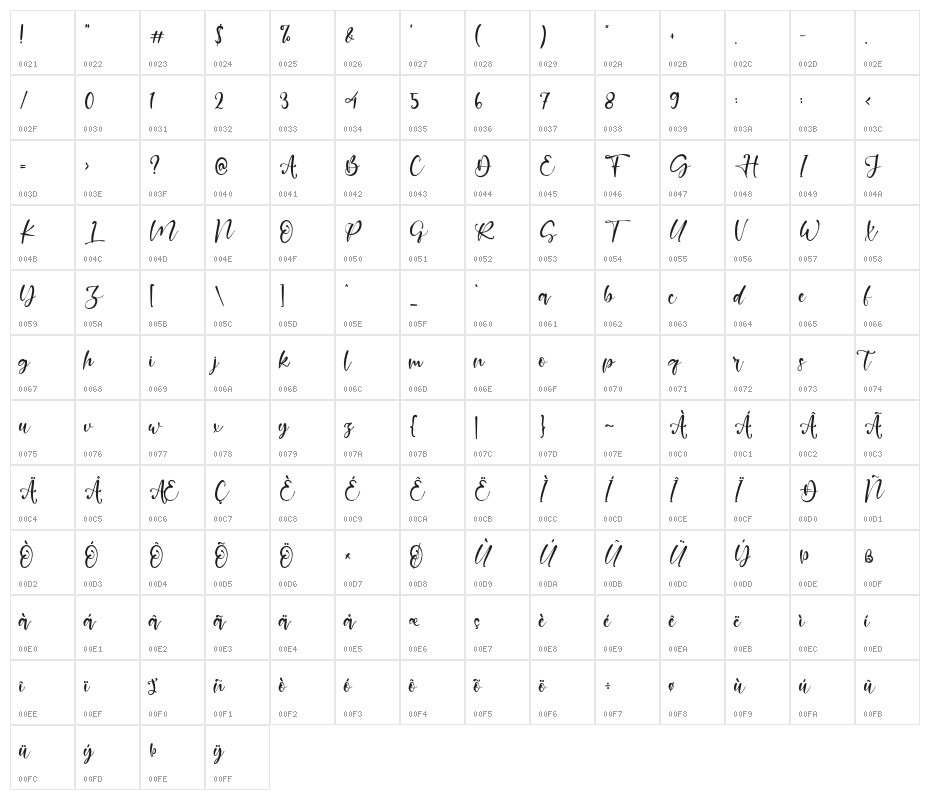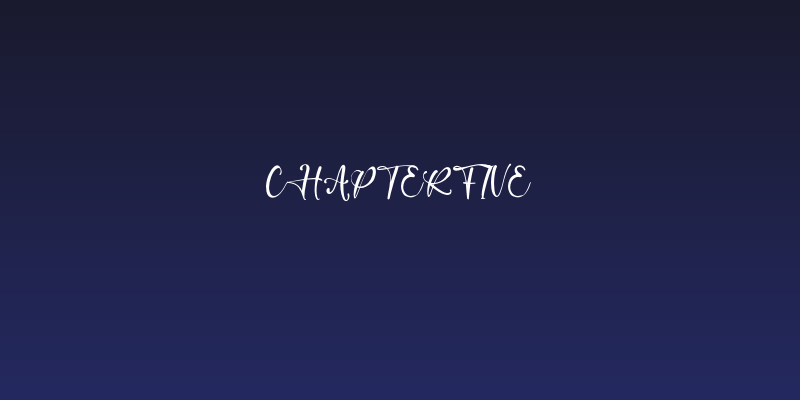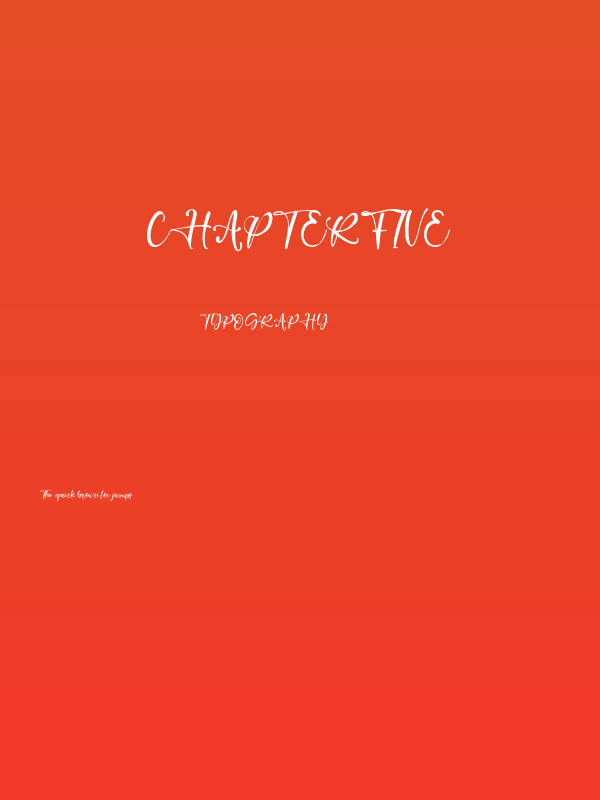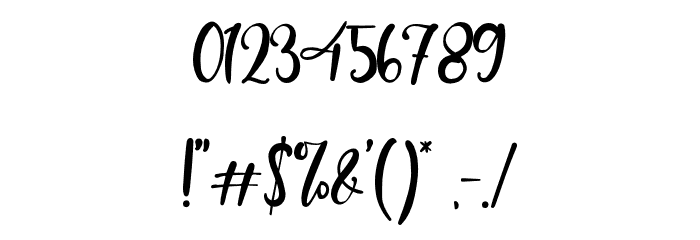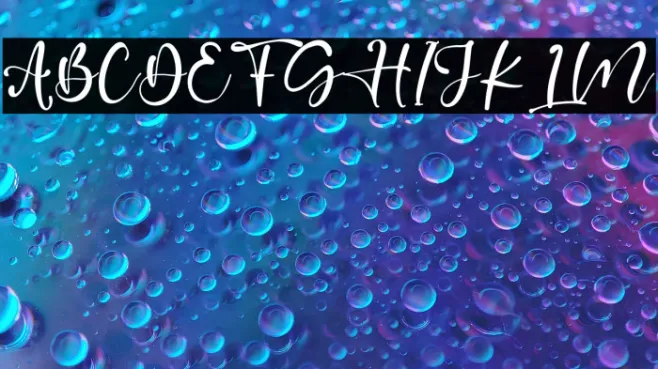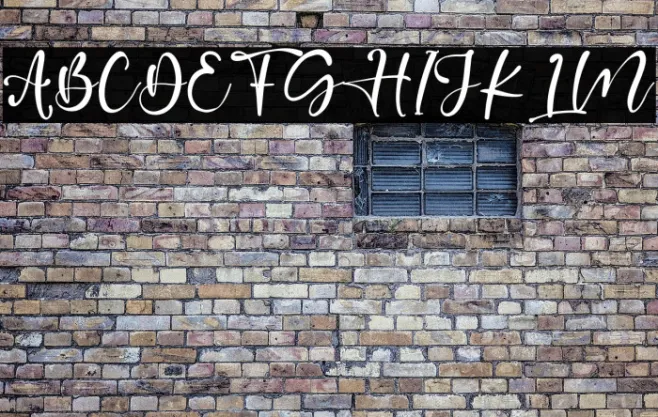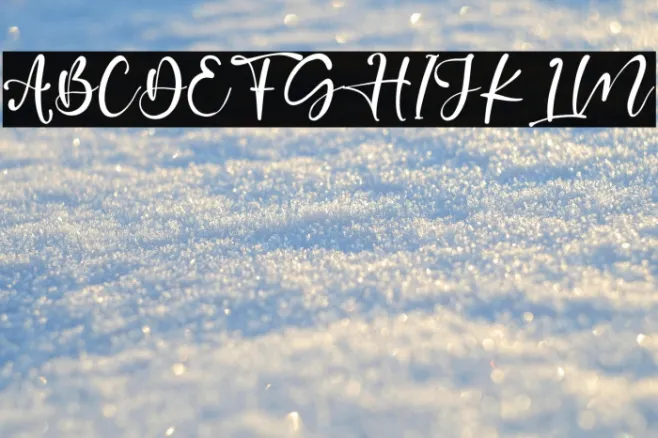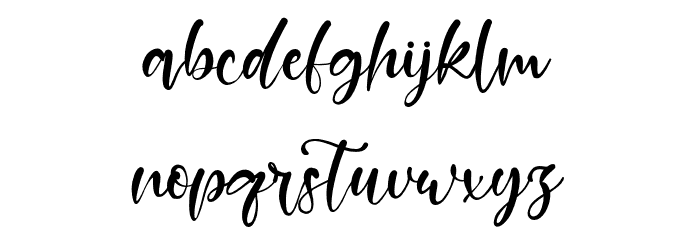
ChapterFive Font
ChapterFive Description
This font features an elegant and flowing script style, characterized by its smooth, cursive letterforms that exude a sense of sophistication and grace. The uppercase letters are particularly ornate, with sweeping curves and flourishes that add a decorative touch. The lowercase letters maintain a consistent flow, enhancing readability while preserving the font's artistic flair. Numbers and special characters are designed to complement the overall style, making this font versatile for various applications. Its high contrast between thick and thin strokes adds to its visual appeal, making it suitable for projects that require a touch of elegance.
| Use Case | Logos, Invitations, Decorative Text |
| Proposed Projects | Ideal for wedding invitations, elegant branding, greeting cards, and upscale packaging. |